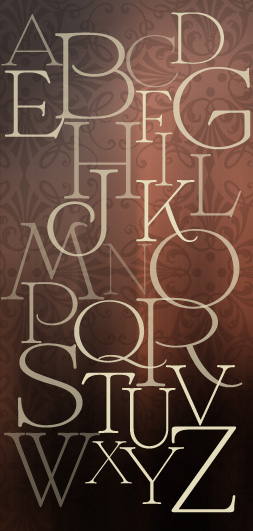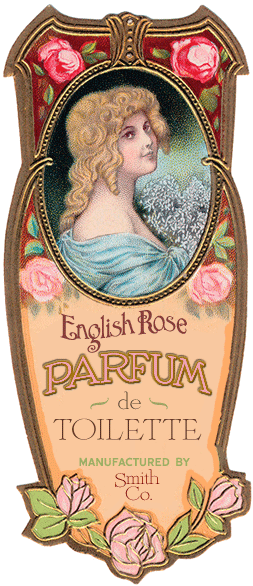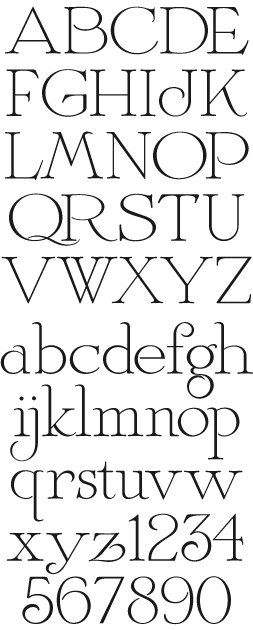
LHF Melissa Classic early 1900's styling from glass artisan Dave Smith. Initially inspired from some old monograms he spotted. Dave chose the name "Melissa" to honor his wife. Includes some handy custom ligatures too.